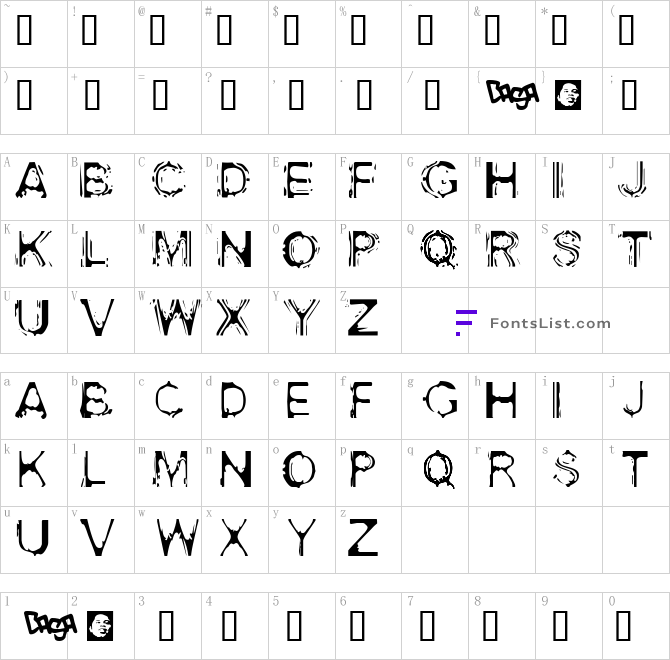
- Font Name:Acid House
Acid-House.ttf is a very beautiful artistic font, Acid-House.ttf is widely used in the design and printing of various books and pictures,Acid-House.ttf has a strong visual impact,Acid-House.ttf is a commonly used font in newspapers, magazines and books, and is used in posters, e-commerce Poster design, store design, logo design, font design and other fields.Acid-House.